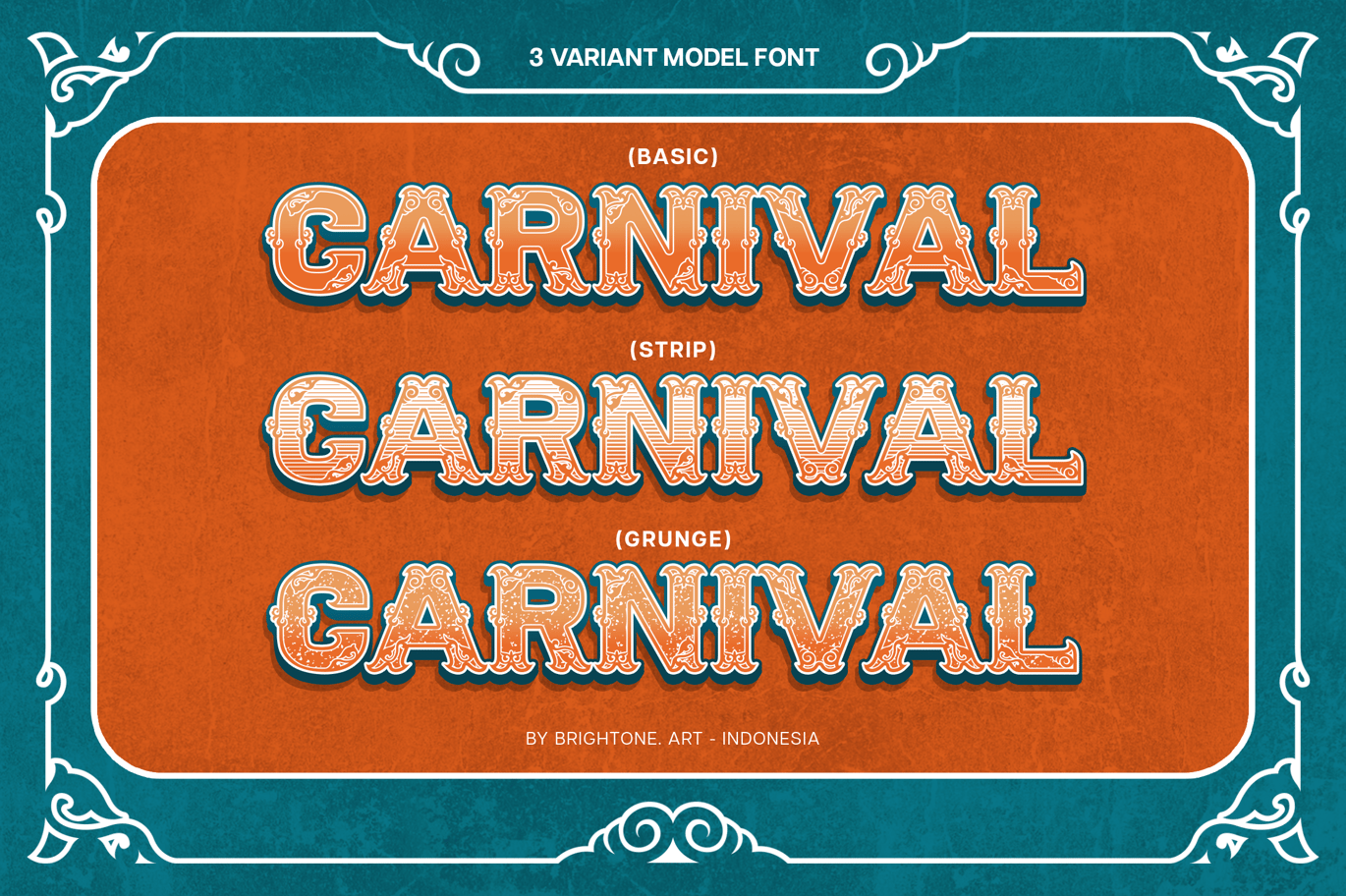
Boldin Carves – Vintage Carnaval Font
Boldin Carves
Based on classic serif font with carnival style includes:
- Uppercase and Lowercase characters
- Numbers and Punctuation
- Multilingual Support (Eastern, Central and Western European countries)
Boldin Carves comes in 3 different styles:
- Boldin Carves – Basic
- Boldin Carves – Strip
- Boldin Carves – Grunge
Classic Serif style for your logo lettering, logo, label, packaging, sticker, branding and many more